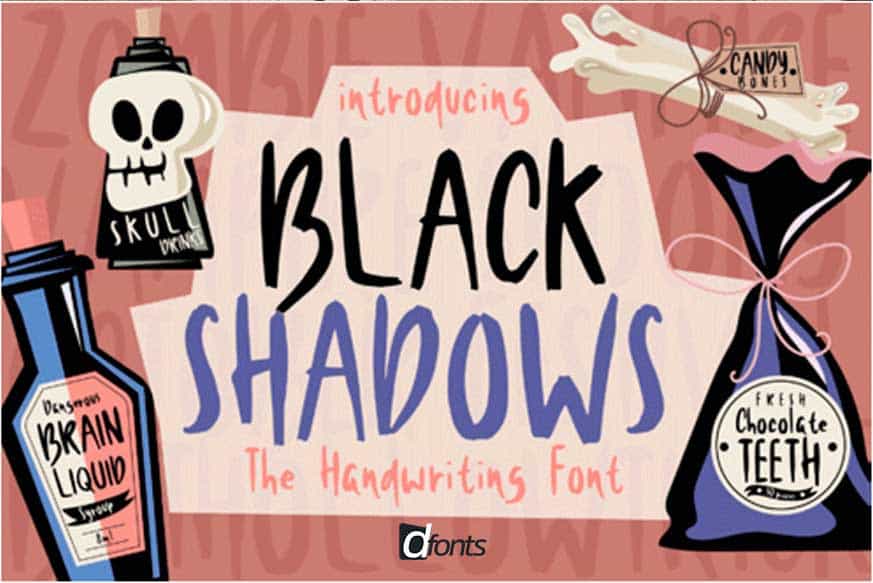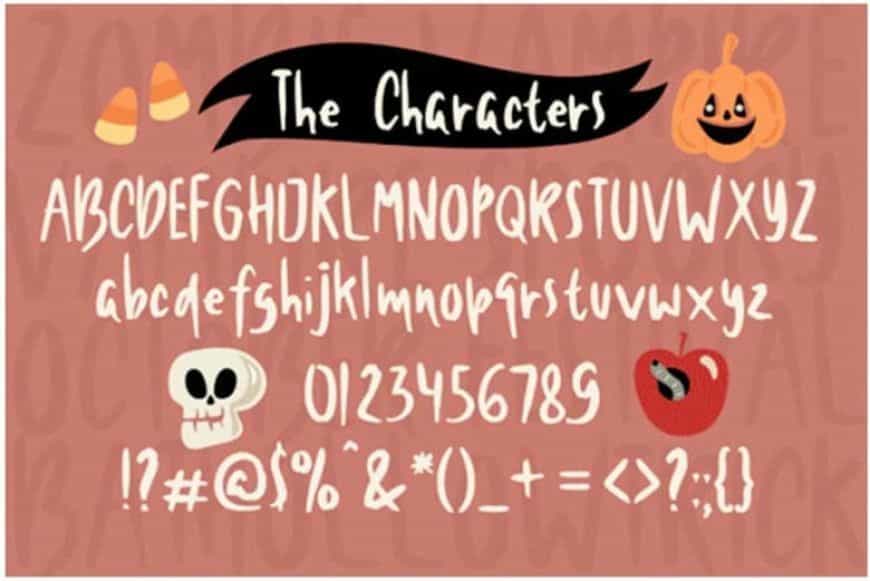
Discover Black Shadows Font, part of the Brush Handwritten collection—a versatile and unique font perfect for adding a personal touch to your projects. Download it for free and enjoy crafting designs with style, from invitations to social media posts. This font is available exclusively for personal use, giving you the freedom to create without limits. Unlock your creativity with Black Shadows Font today!
Black Shadows is a handwriting style that allows the user to express their creativity. Whether it’s getting the chills or trying to amuse people, Halloween themed designs are just right with this font! There are 22 illustrations including ghosts, spider webs, witch hats and bones.